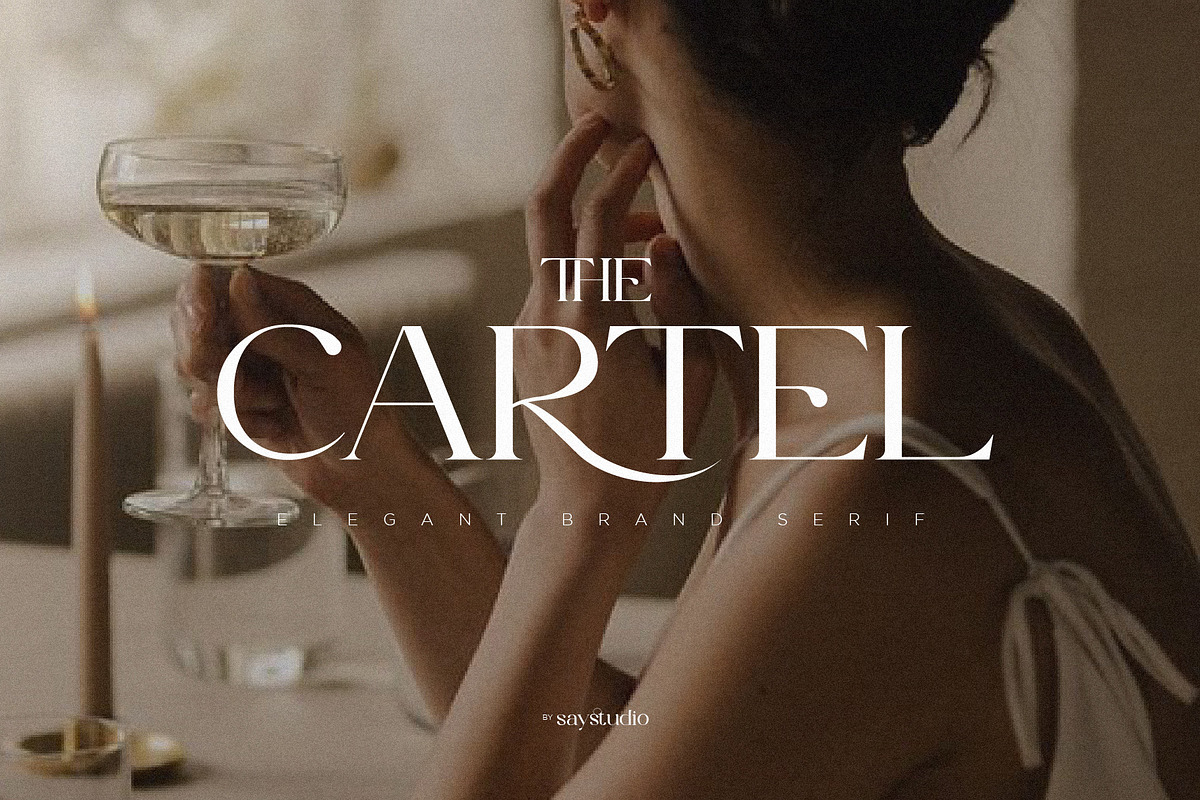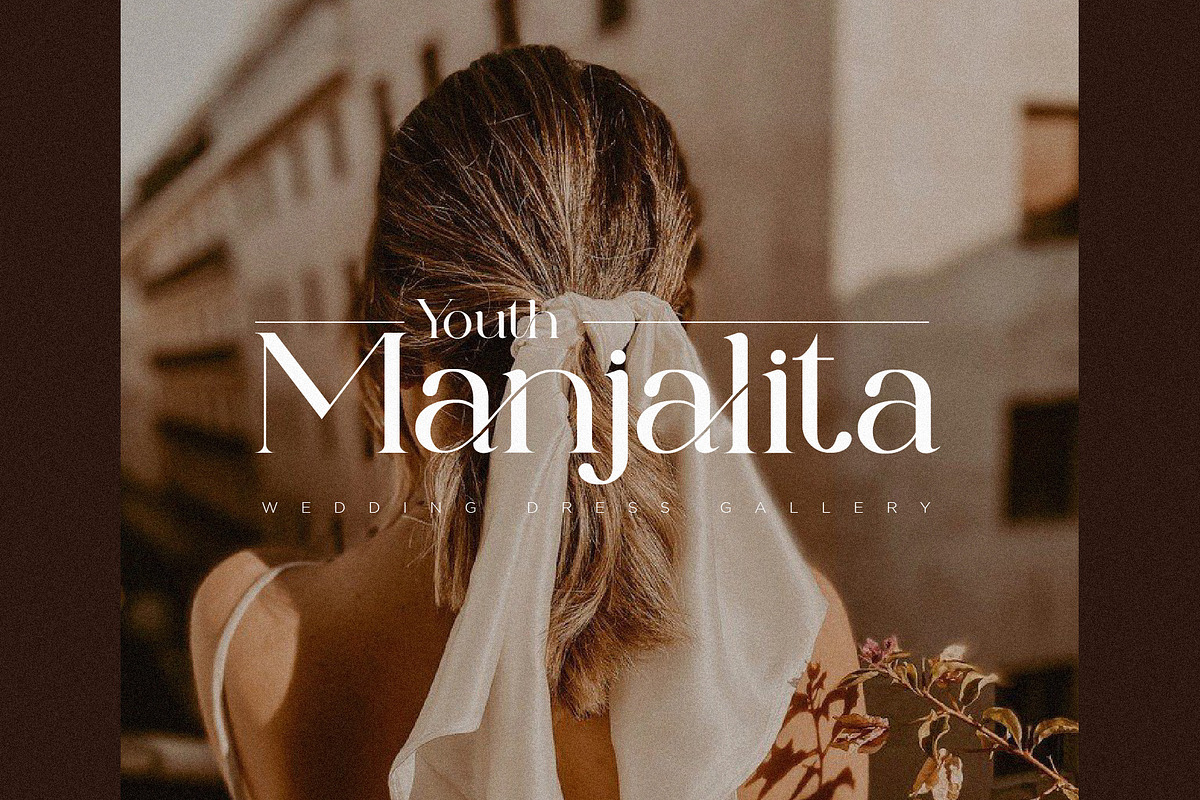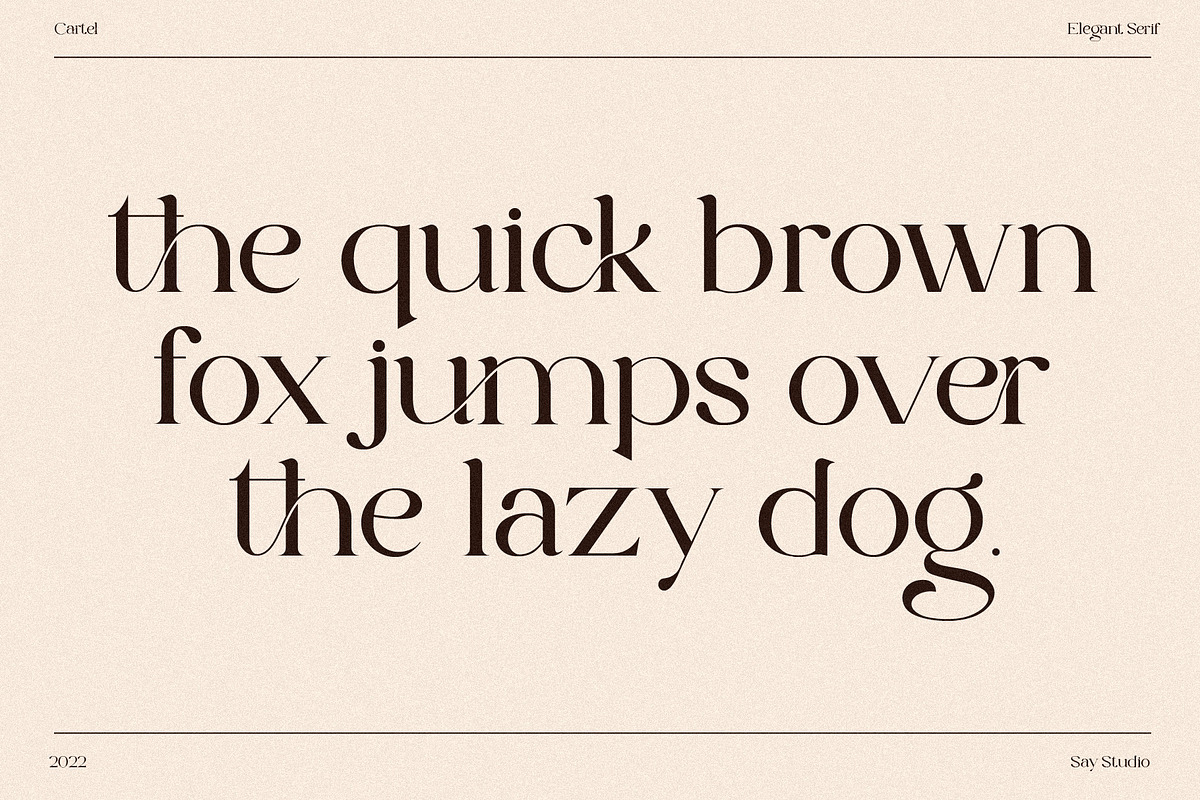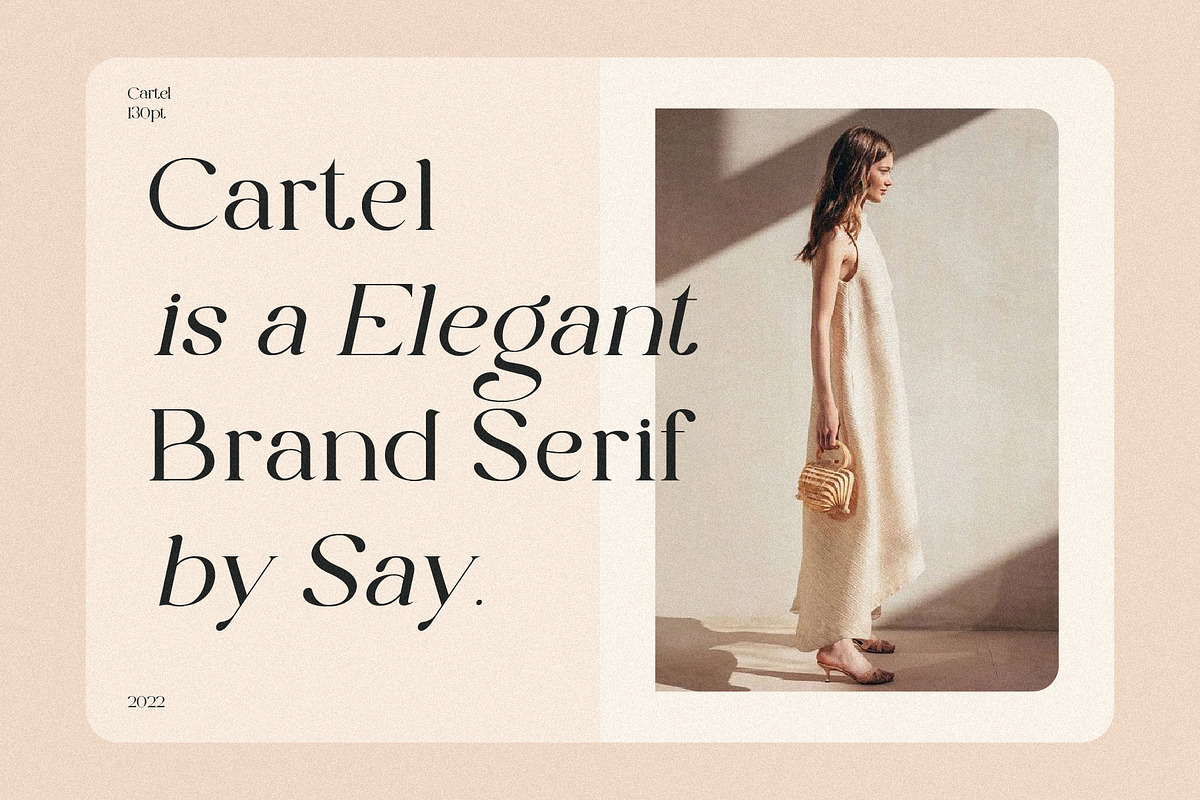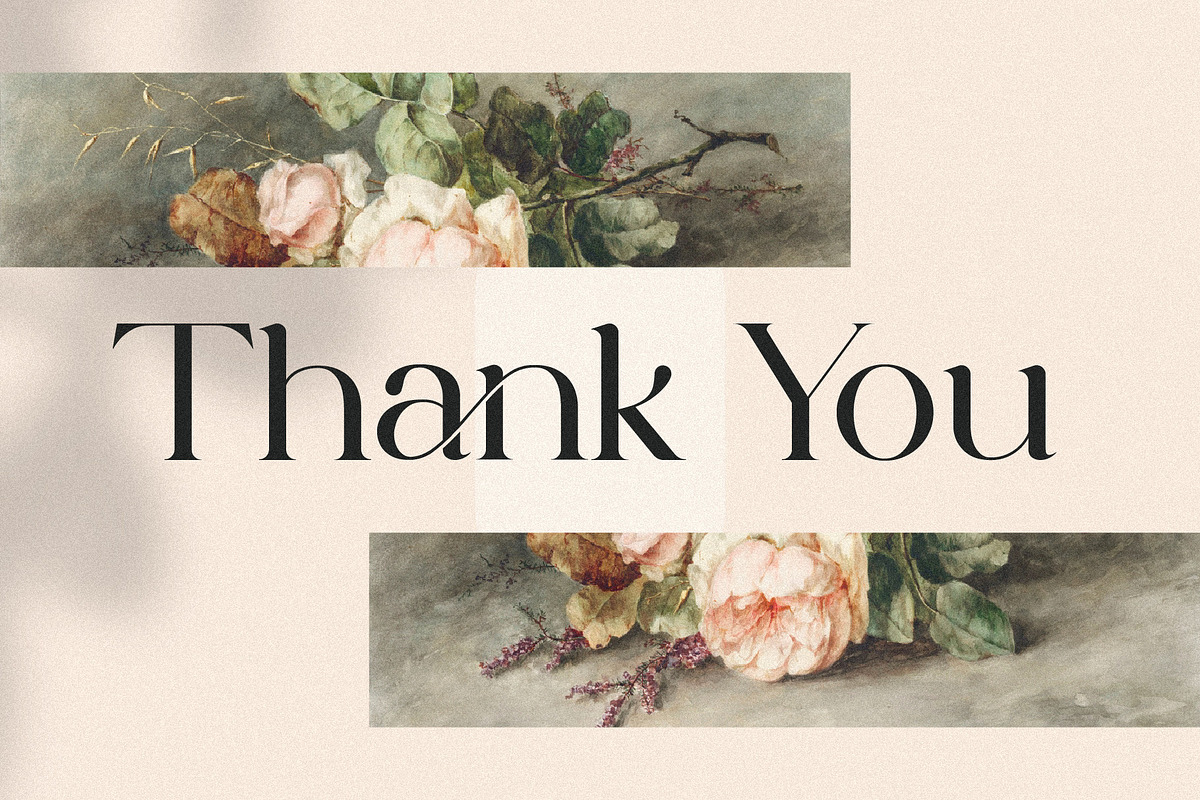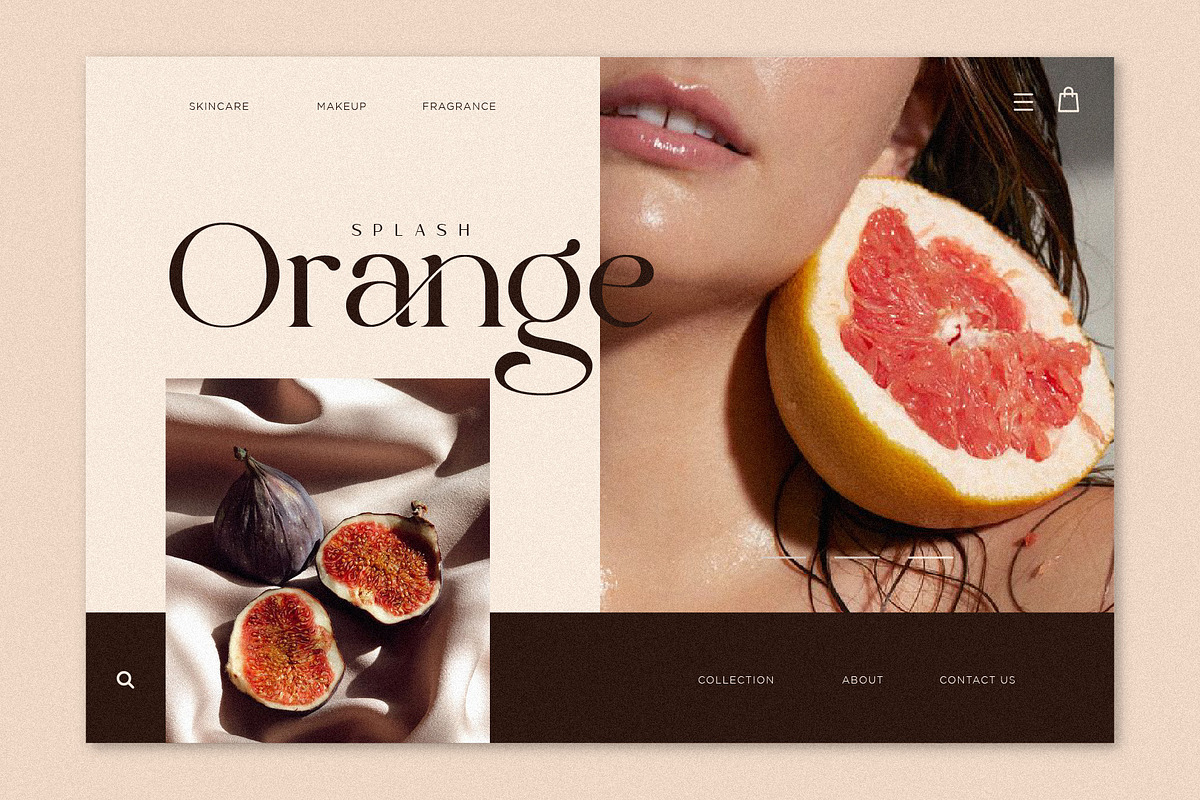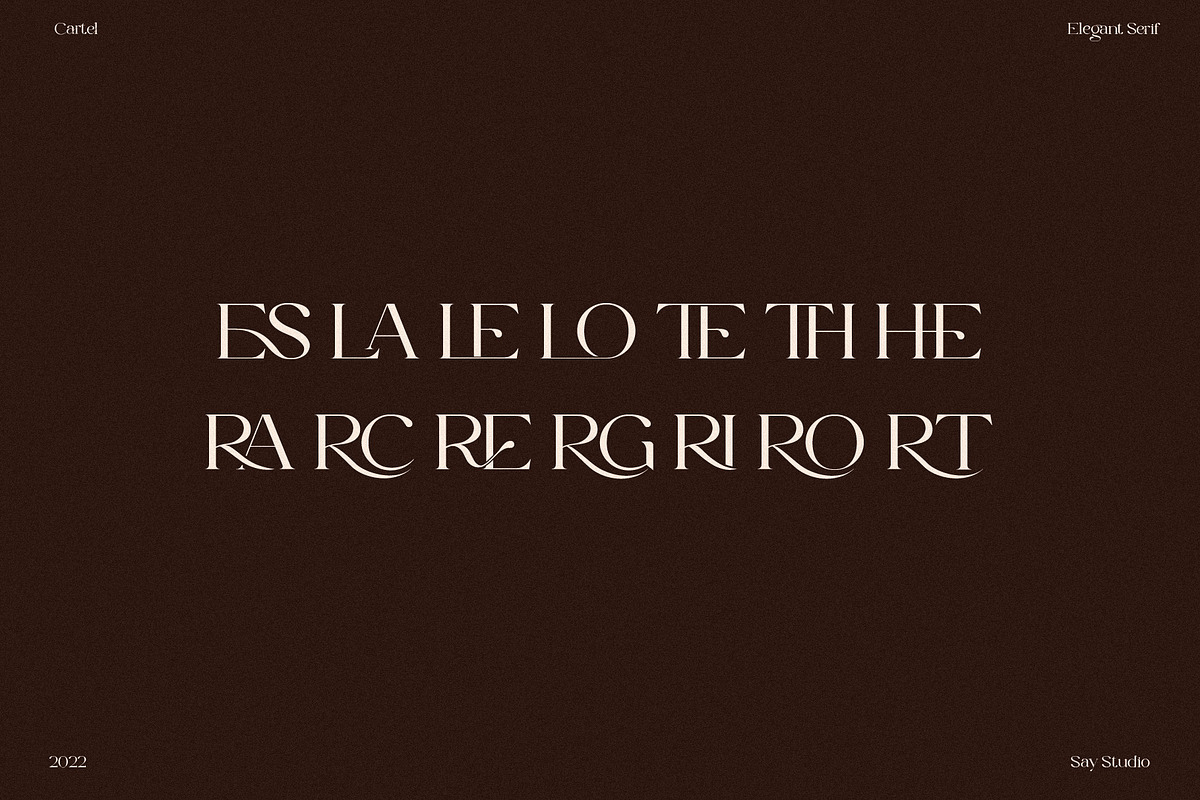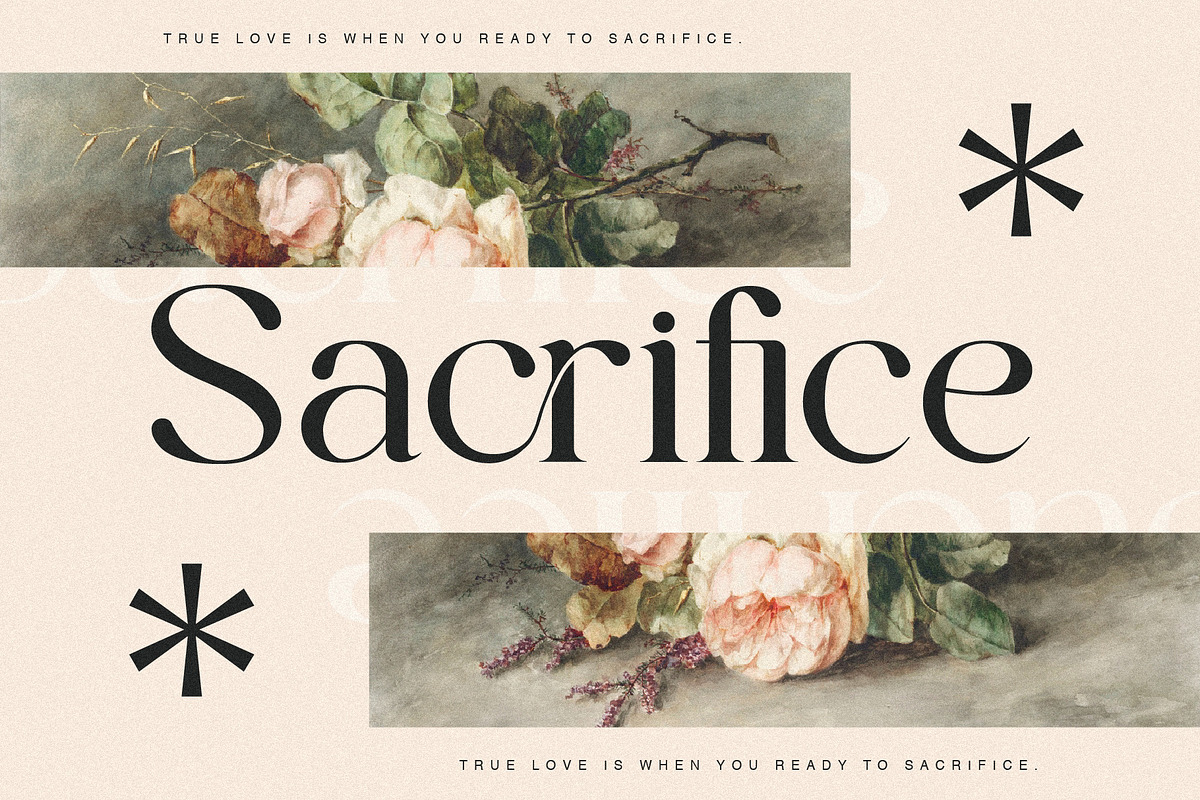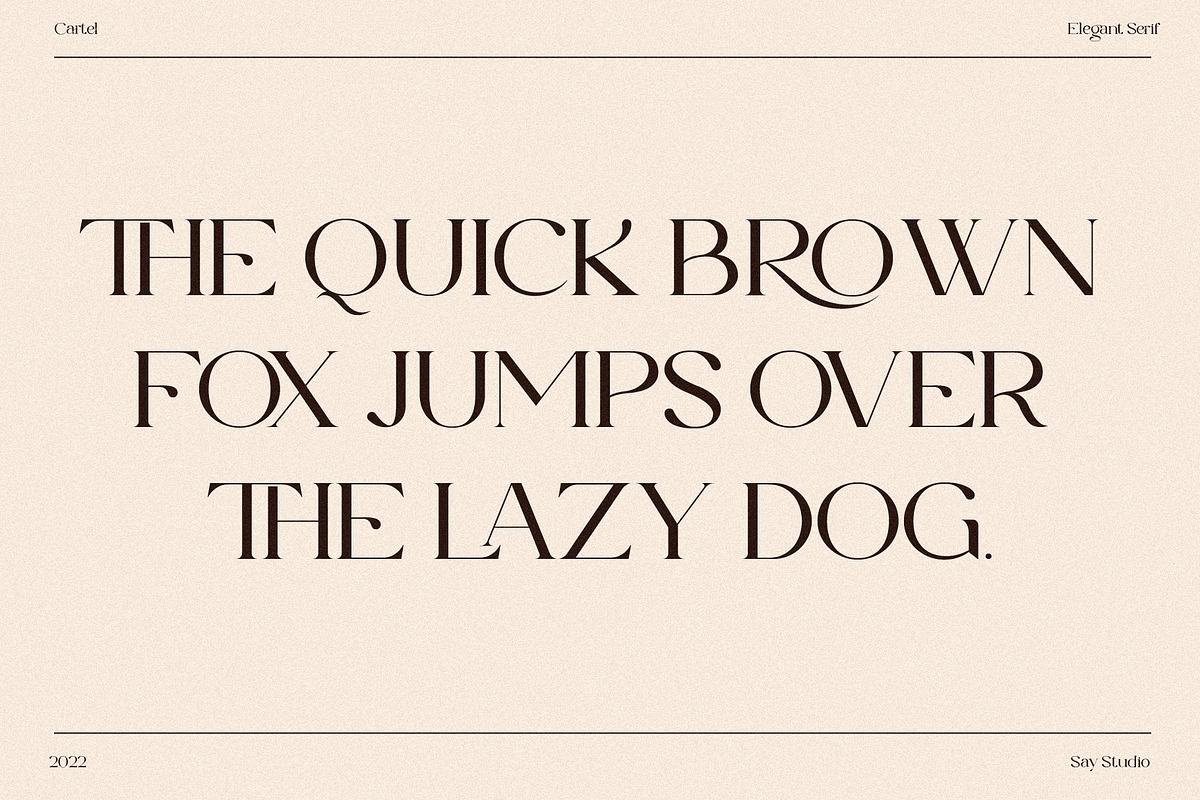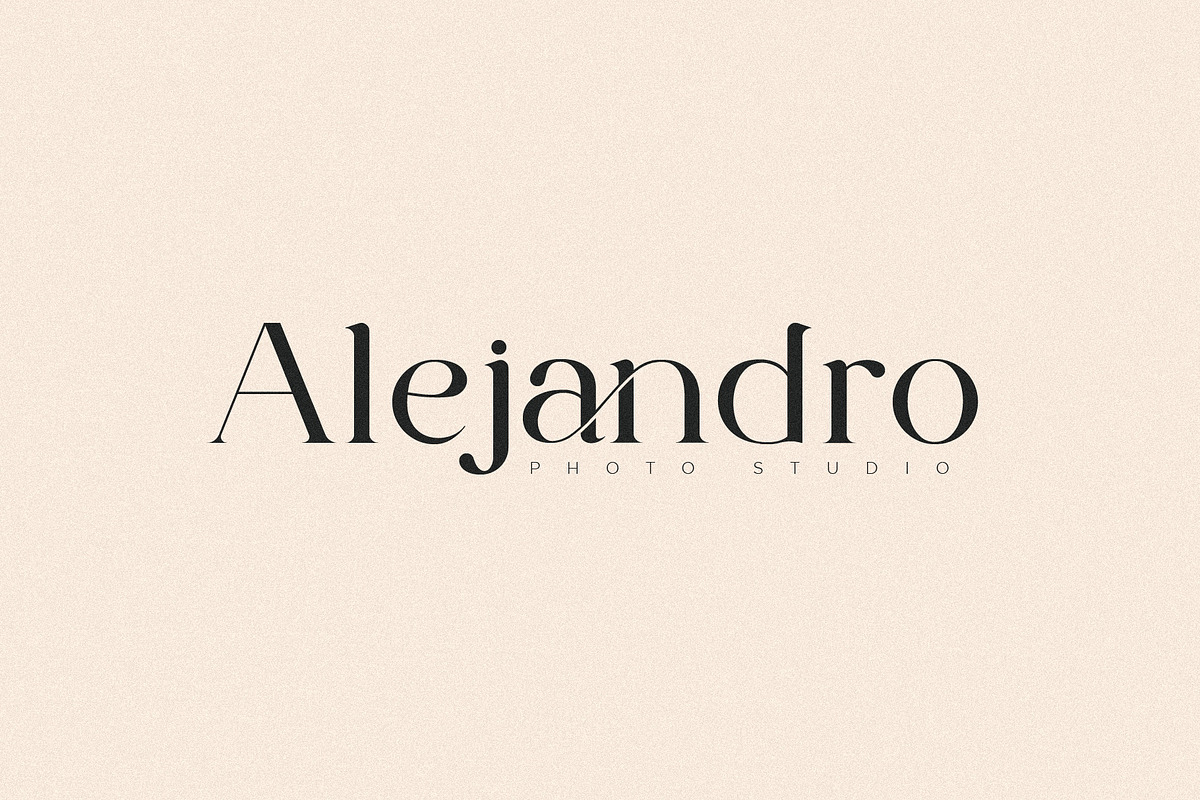
The Cartel - Elegant Serif Font
The Cartel is a elegant serif font . This typeface has been made carefully to make sure its premium quality and luxury feel. The ligatures makes this typeface unique and stands out rather than the regular serif font. Very suitable for logo, headline, tittle, and the other various formal forms such as invitations, labels, logos, magazines, books, greeting / wedding cards, packaging, fashion, make up, stationery, novels, labels or any type of advertising purpose.